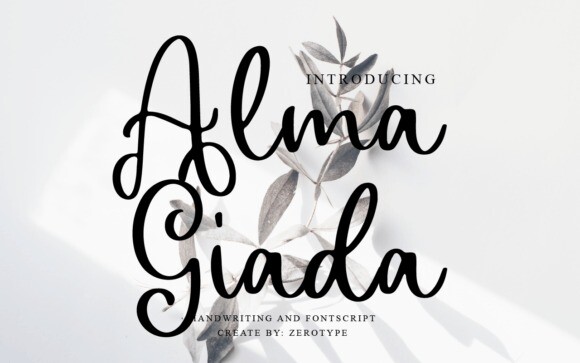
Alma Giada Font
The breathtaking script font is a true work of art, meticulously crafted to exude elegance and charm. With its delicate curves and intricate details, it adds a touch of sophistication and refinement to any design project. Its timeless beauty is sure to captivate and enchant viewers, leaving a lasting impression.